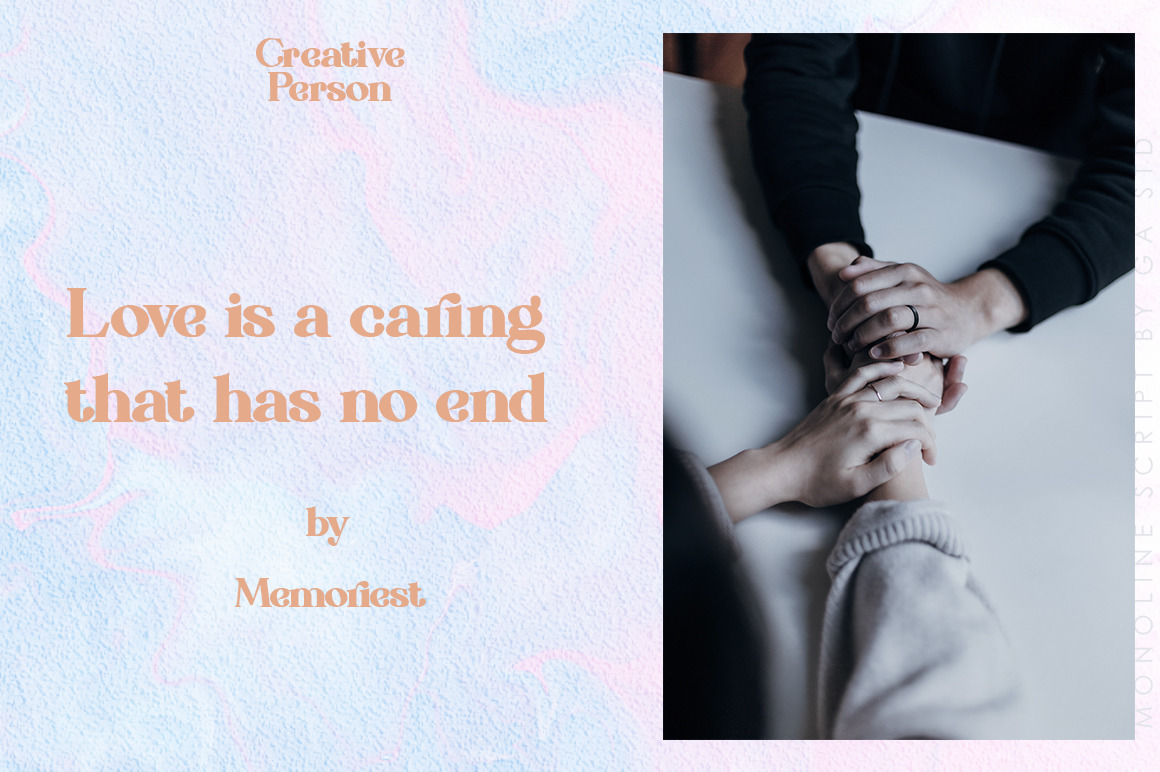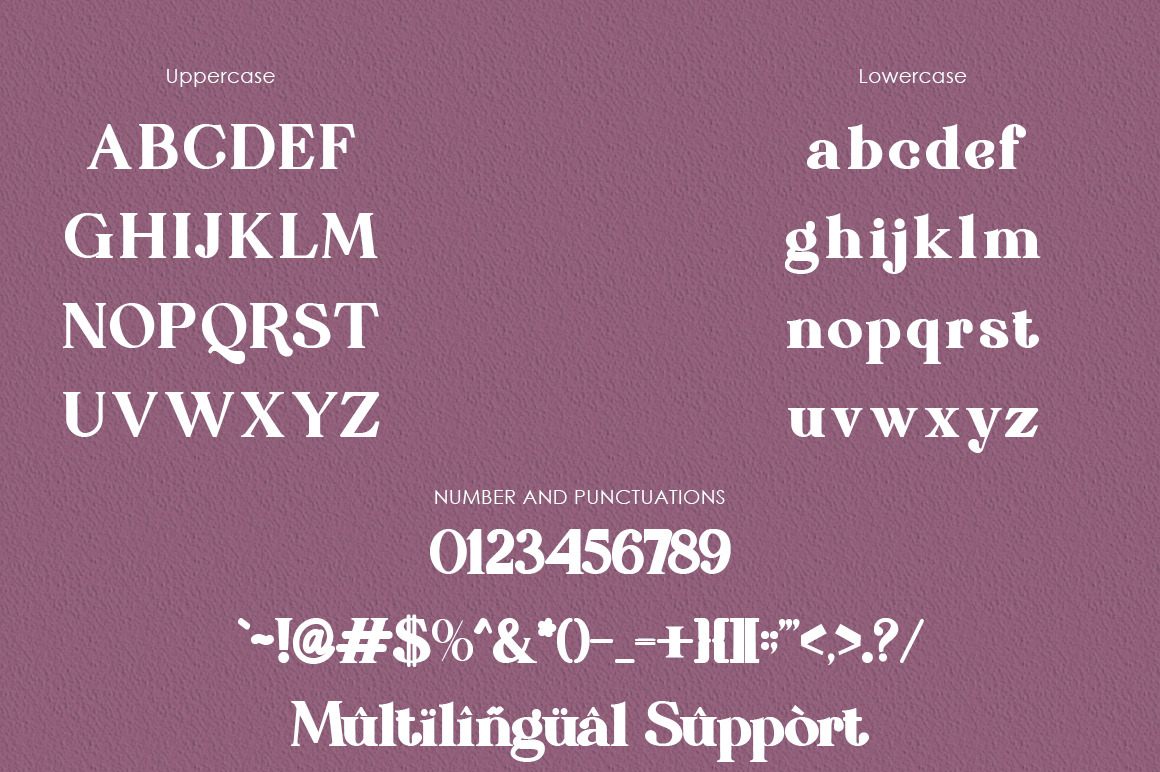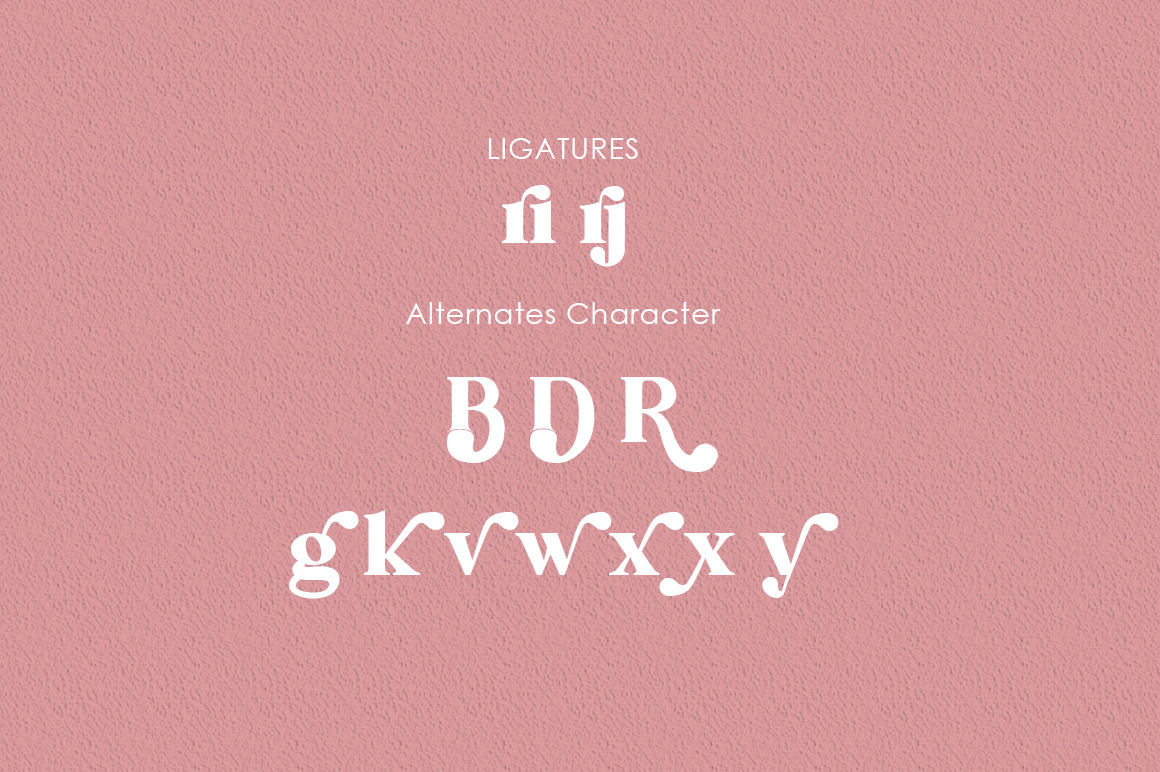
Brief River Font
Introducing Brief River is a serif font that is elegantly and stunningly crafted with a modern touch as well as a classic style. very suitable for logo / branding projects, large header text and for other supporting purposes.
Brief River Features:
- Standart Character
- Ligatures
- Alternates Character
- Number & Punctuation